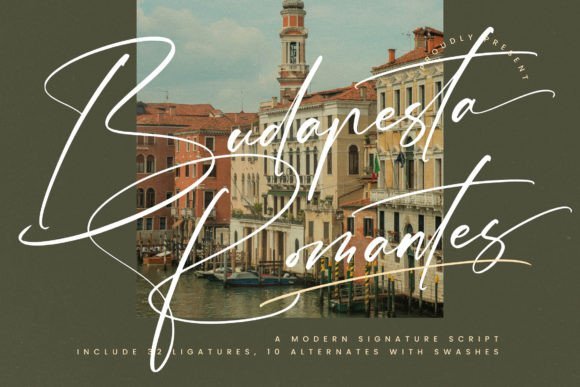
Where Romance Meets Luxury: Introducing Budapesta Romantes Font
Imagine you’re walking through a charming European city, surrounded by historic architecture and winding streets. The soft glow of streetlights casts a warm ambiance, and the sound of gentle chatter fills the air. As you pause to admire a beautifully designed storefront, a spark of inspiration hits you – and you can’t wait to bring that same elegance to your next design project.
That’s where Budapesta Romantes Font comes in – a luxurious script font from Letterena that’s designed to elevate your projects to new heights. With its sophisticated and romantic flair, this font is perfect for anything from logos and branding to homeware designs and product packaging. Whether you’re looking to create a sense of luxury or simply add a touch of whimsy to your work, Budapesta Romantes Font is the perfect tool to help you bring your vision to life.
Budapesta Romantes Font Key Features
- Font Style: Script, Handwritten
- Font Size: 300 glyphs
- Unique Characteristics: Unique, cursive script style with elegant and romantic feel, ideal for invitations, wedding stationery, and other special occasions
- Language Support: Latin, Cyrillic, Greek, and other languages with Latin-based alphabets
Budapesta Romantes Font Review
Overall, I was excited to dive into the Budapesta Romantes Font and see what it had to offer. While it’s not without its limitations, there are some things that work really well. ✨
- The font has a unique, elegant feel that’s perfect for romantic or whimsical projects.
- The varied weights and styles offer a lot of flexibility for designers.
- The font is well-suited for use in body text, as well as titles and headings.
- ⚠️ The font is not as readable at smaller font sizes, which can make it difficult to use in certain contexts.
- ⚠️ Some of the characters may not be as polished or refined as they could be.
- ⚠️ The font may not be suitable for use in digital interfaces or apps, due to its ornate and cursive feel.
In terms of overall impression, I think the Budapesta Romantes Font is a solid choice for designers looking to add a touch of elegance and whimsy to their projects. While it may not be perfect, its unique feel and varied styles make it a great option for the right projects. With some careful consideration and use, I think this font has the potential to be a real showstopper.
Getting the Most Out of the Font
To get the most out of the Budapesta Romantes Font, use it in conjunction with other design elements to create a romantic and whimsical atmosphere.
Try pairing it with floral patterns, soft colors, and elegant graphics to create a cohesive look.
The Budapesta Romantes Font is perfect for:
Valentine’s Day cards and gifts
Love-themed social media posts and graphics
Alternatives to Budapesta Romantes Font
Playfair Display is a luxurious and elegant serif font perfect for creating a sophisticated and high-end feel. It is ideal for use in advertising, branding, and editorial designs where a touch of luxury is needed. Compared to Budapesta Romantes Font, Playfair Display has a more refined and classic look, making it suitable for formal and high-end designs.
Great Vibes is a modern and elegant script font that is perfect for creating a romantic and whimsical feel. It is ideal for use in wedding invitations, greeting cards, and other designs where a touch of romance is needed. Compared to Budapesta Romantes Font, Great Vibes has a more fluid and dynamic look, making it suitable for designs that require a sense of movement and energy.
Carolyna Pro is a elegant and sophisticated serif font that is perfect for creating a refined and high-end feel. It is ideal for use in branding, advertising, and editorial designs where a touch of sophistication is needed. Compared to Budapesta Romantes Font, Carolyna Pro has a more classic and timeless look, making it suitable for formal and professional designs.
Alex Brush is a elegant and whimsical script font that is perfect for creating a romantic and artistic feel. It is ideal for use in wedding invitations, greeting cards, and other designs where a touch of romance and whimsy is needed. Compared to Budapesta Romantes Font, Alex Brush has a more fluid and expressive look, making it suitable for designs that require a sense of personality and charm.